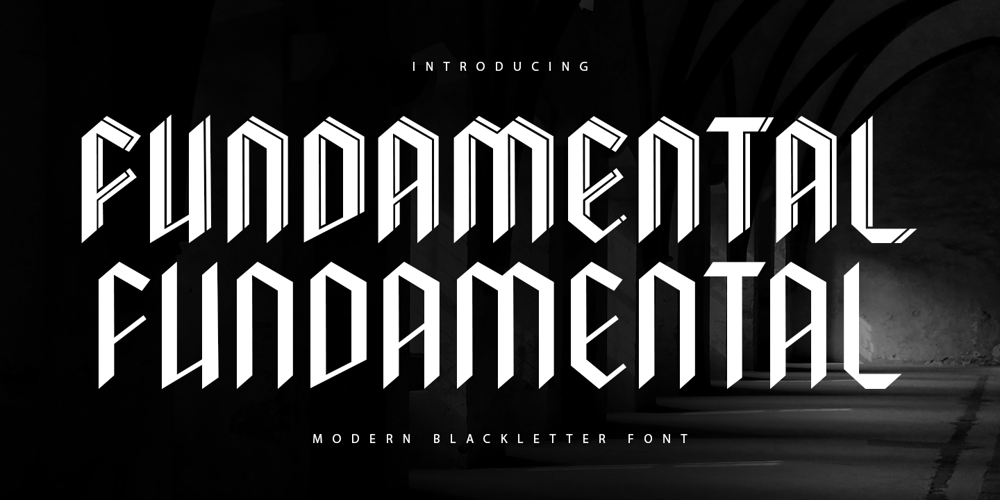
Fundamental Font Family was designed by Zamroni Hamzah and published by Sensatype Studio. Fundamental contains 2 styles and family package options. Fundamental is a Modern Blackletter Font with a fundamental, roman, and old style, font that you can combine to get any variations and unique shapes easily just in seconds with choose alternates of them. It is a serif display font with moderate contrast that perfect for branding projects, logo, wedding designs, social media posts, advertisements, product packaging, product designs, label, photography, watermark, invitation, stationery, and any projects, it makes with a high level of legibility.What’s Included: Fundamental Regular & Shadowfont Character set A-Z Uppercase & Lowercase Numerals & Punctuation Accented Characters (West Europe) Stylistic alternates Works on PC & Mac Recommended using Adobe Illustrator or Adobe Photoshop. Wish you enjoy our font. ๐